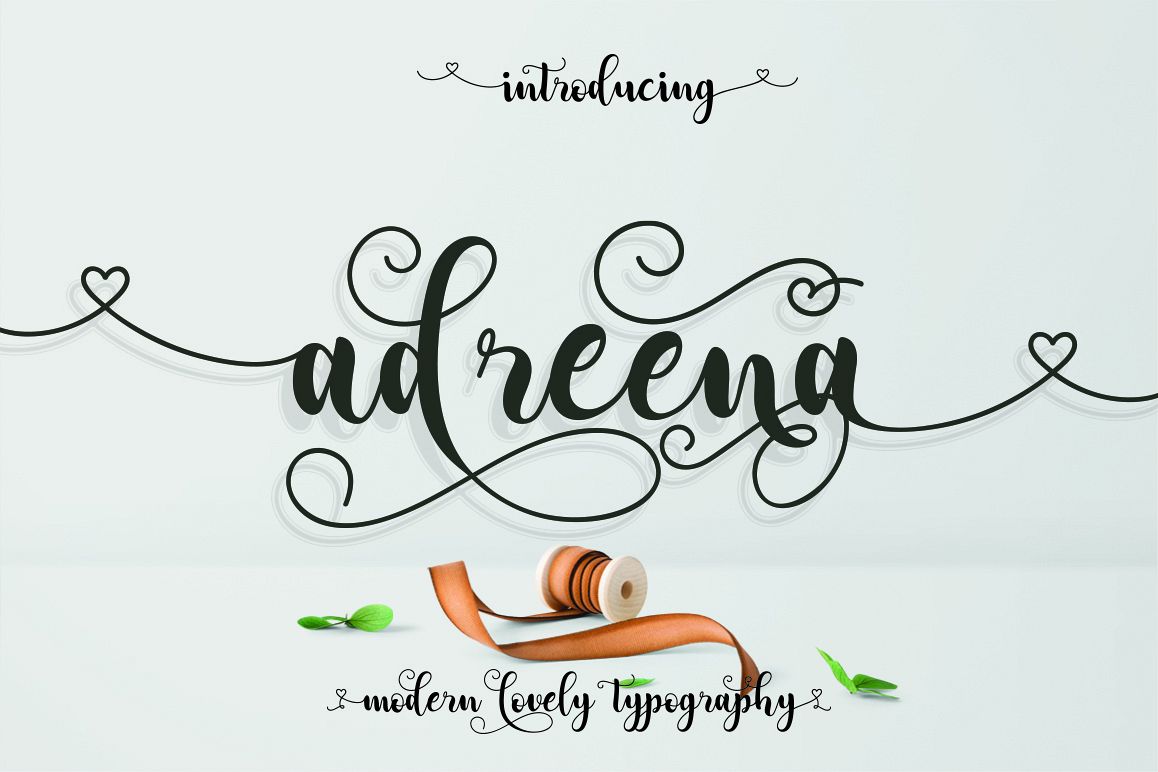
Adreena Lovely Font
Adreena Script font that is made
with love, Adreena script is suitable for branding, invitation, t-shirt,
mailing, and and other suitable design you want.
Adreena Script features with :
• Basic Glyphs, Numerals, Symbol and punctuation
• Stylistic Sets 1 - 13
• Stylistic Alternates, Contextual Alternates
• Ligatures and Discretionary Ligatures
• Swash